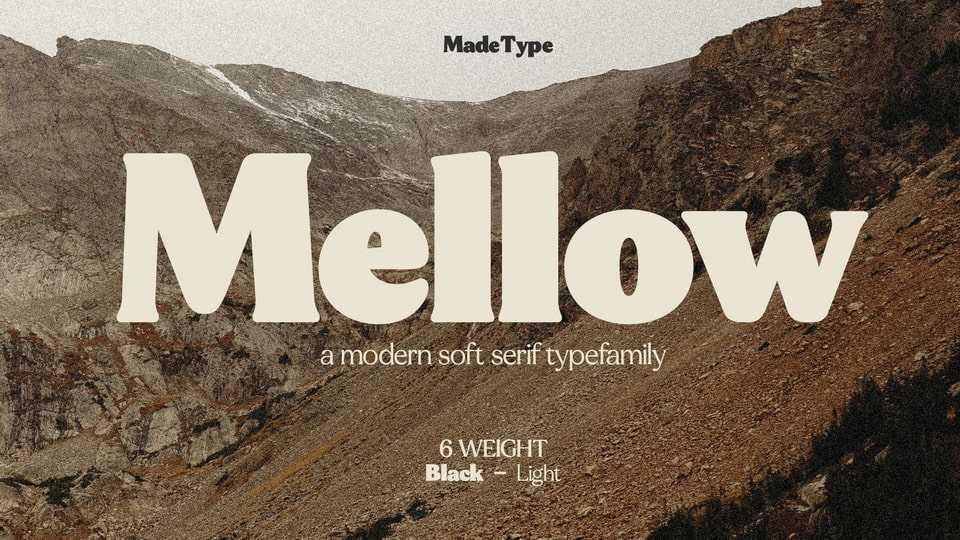
MADE Mellow Font › Fontesk – Download Grátis
Download MADE Mellow font, a modern serif typeface. With its vintage vibe MADE Mellow font works great for headlines, logos, labels, posters, branding, packaging and any display use.
Designer: Made Type